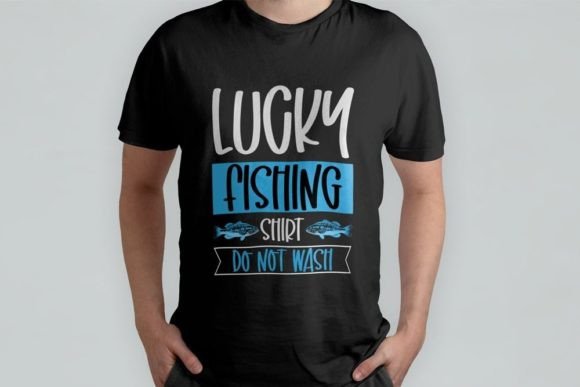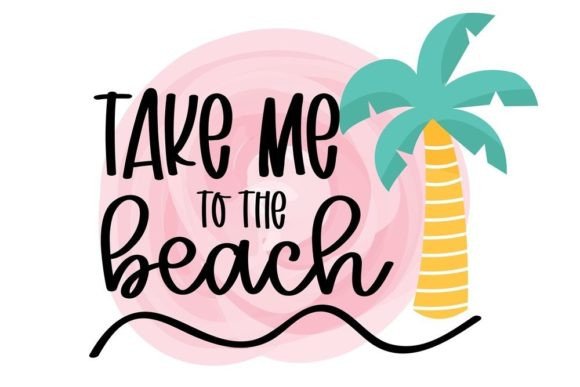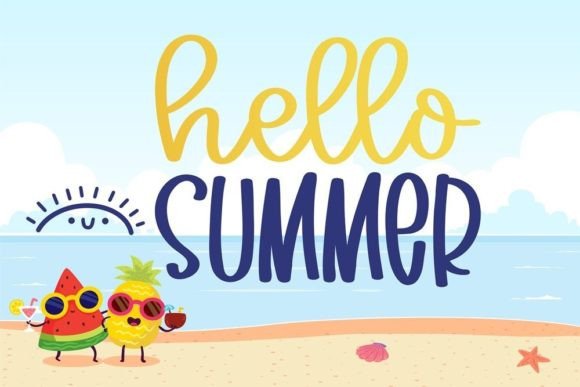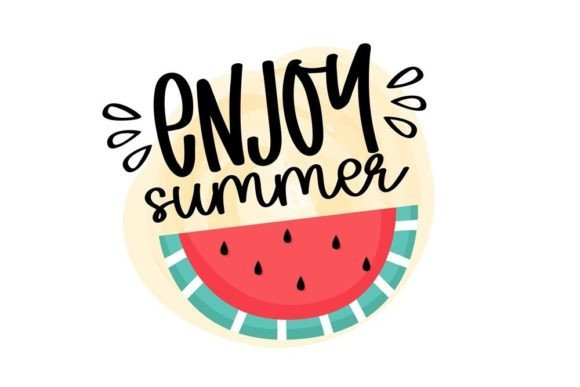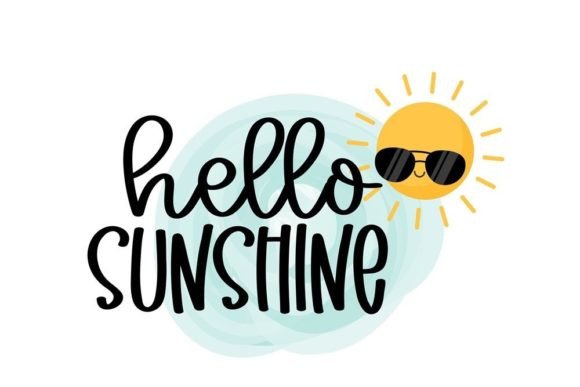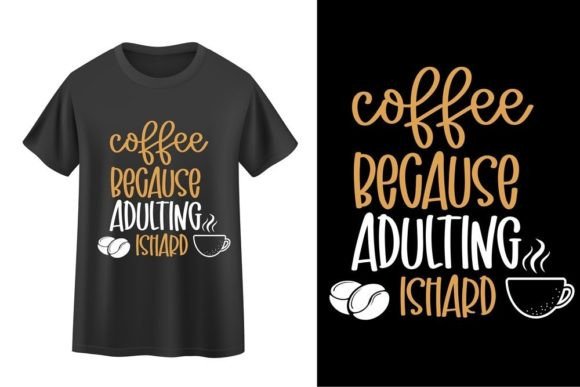
Get Ready to Bask in the Beauty of Forever Summer Font
As a designer, there’s nothing quite like the feeling of stumbling upon the perfect font to bring your creative vision to life. For me, it was the moment I discovered Forever Summer Font – a sweet and cute handwritten font duo that instantly made me smile. Its incredibly versatile style has a way of making even the simplest designs feel like a work of art.
Forever Summer Font is more than just a pretty face; it’s a valuable tool for designers looking to add a touch of whimsy and romance to their projects. Whether you’re creating gorgeous wedding invitations, beautiful stationery art, or eye-catching social media posts, this font duo is sure to make a lasting impression.
Forever Summer Font Key Features
- Unique Characteristics: This font features a unique blend of modern and vintage elements, with intricate details and ornate flourishes, making it perfect for creating eye-catching designs.
- Legibility: Despite its decorative nature, Forever Summer Font remains highly legible, even at small font sizes, ensuring that your text remains clear and easy to read.
Forever Summer Font Review
First off, I have to say that the Forever Summer Font is a great addition to any design project that needs a carefree, summery vibe. ✨ The font’s rounded edges and cursive lines evoke a sense of playfulness and whimsy that’s perfect for branding, social media, and even print materials. ✨ The font also comes in a range of weights and styles, which gives designers a lot of flexibility when it comes to choosing the perfect look for their project.
- Rounded edges and cursive lines give the font a playful, summery vibe.
- Available in a range of weights and styles for added flexibility.
- Works well for branding, social media, and print materials.
However, there are a few limitations to consider. ⚠️ The font can feel a bit too casual for more formal projects, and the cursive lines can be difficult to read in certain contexts. Additionally, the font’s versatility can make it feel a bit overused if not used thoughtfully.
The Forever Summer Font is a great choice for designers who want to add a carefree, summery vibe to their projects. While it may not be the best fit for every project, it’s a versatile and fun font that can add a lot of personality to your designs. Just be sure to use it thoughtfully and in context to get the most out of it.
To get the most out of the Forever Summer Font, try using it in combination with bright and pastel colors to create a cohesive summer theme. You can also experiment with different font sizes and styles to add visual interest.
The Forever Summer Font is perfect for:
- Summer-themed invitations and party decorations.
- Beach-inspired social media posts and graphics.
- Summer-themed branding and marketing materials.
Alternatives to Forever Summer Font
Great Vibes is a beautiful script font that captures the carefree and playful essence of a summer day. It’s perfect for designing invitations, posters, and social media graphics that need a touch of whimsy and fun. Great Vibes has a more fluid and cursive feel compared to Forever Summer Font, which has a more geometric and rounded design.
Alex Brush is a elegant and sophisticated script font that’s ideal for high-end designs, such as luxury branding, weddings, and fine art projects. It has a more refined and polished look compared to Forever Summer Font, which is more playful and casual. Alex Brush is perfect for designers who want to create a sense of luxury and sophistication.